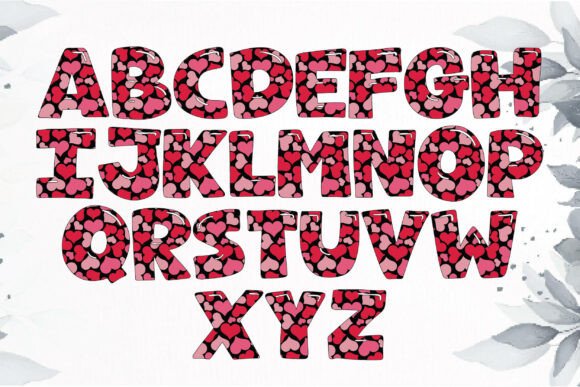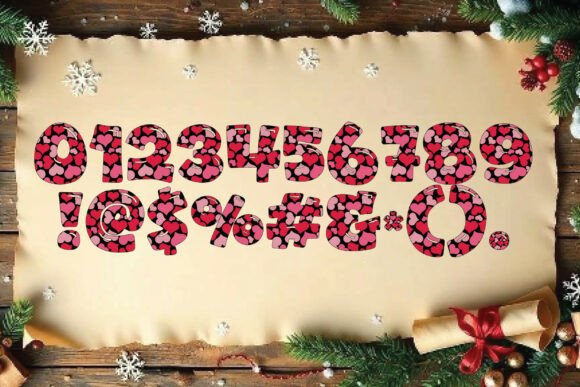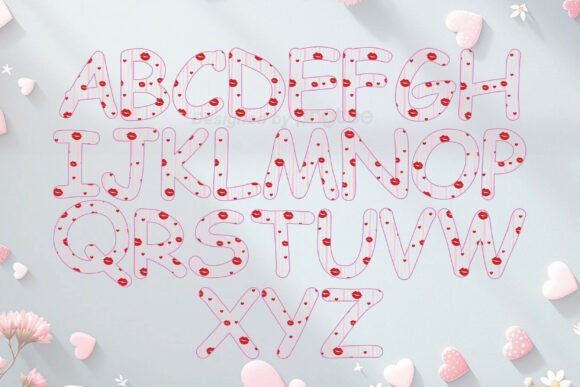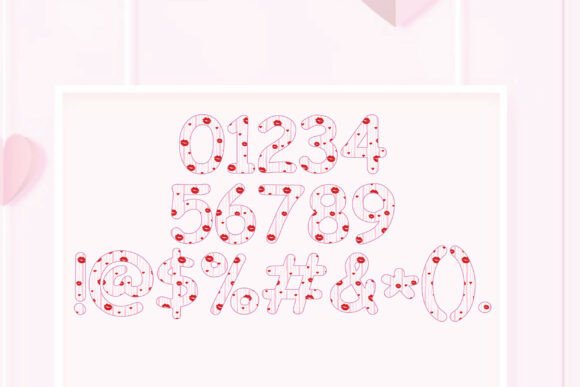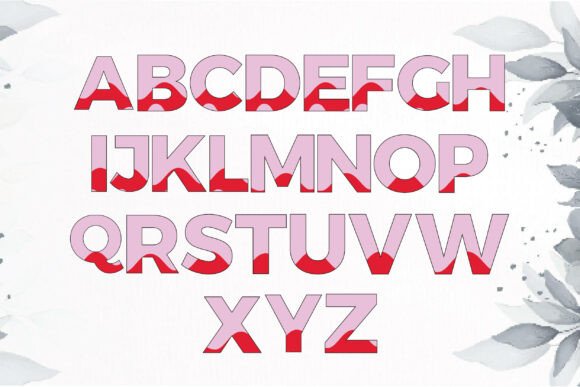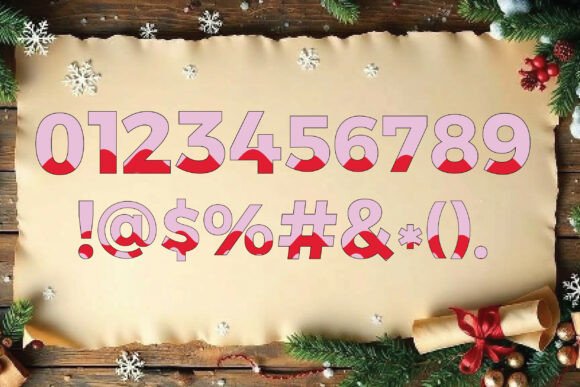
Berry & Valentine Font Bundle – Preppy Love Cute Alphabet Pack
💘 Add a dash of sweetness, charm, and romantic vibes to your designs with the Berry & Valentine Font Bundle! This lovely collection is a must-have for designers, crafters, and anyone looking to create adorable and stylish projects for Valentine’s Day and beyond.
The Berry & Valentine Font Bundle features four delightful fonts that blend playful dotted lettering with soft and stylish Valentine themes. The included fonts are:
- Berry Dot Font – A fun and playful dotted-style lettering perfect for adding a whimsical touch to your designs.
- Preppy Love Font – A trendy and stylish love-themed font that’s ideal for creating modern and chic projects.
- Valentine Font – A classic Valentine-style font that’s perfect for all your love projects, from Valentine’s Day cards to romantic quotes.
- Valentine Love Font – A sweet and decorative romantic alphabet that’s sure to add a touch of elegance to your designs.
- Unique and Playful Fonts – The four fonts included in this bundle are unique, playful, and sure to add a dash of personality to your designs.